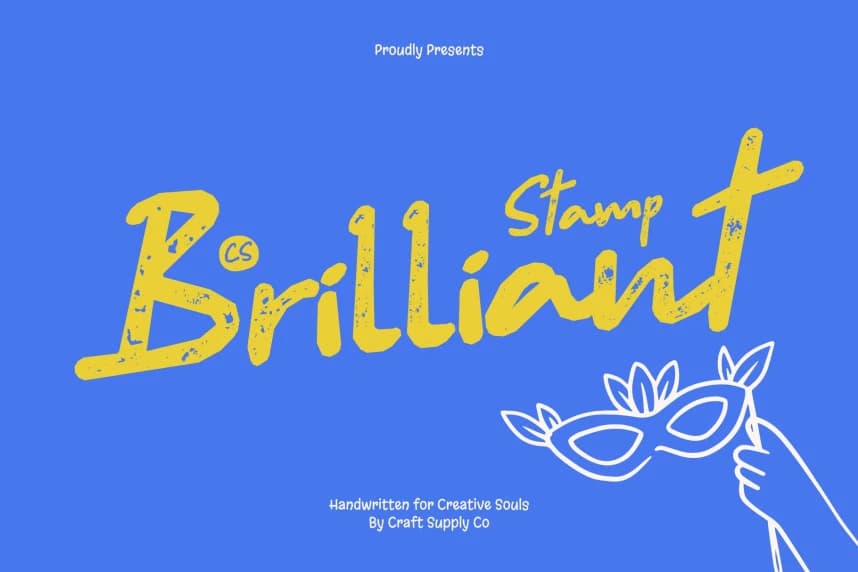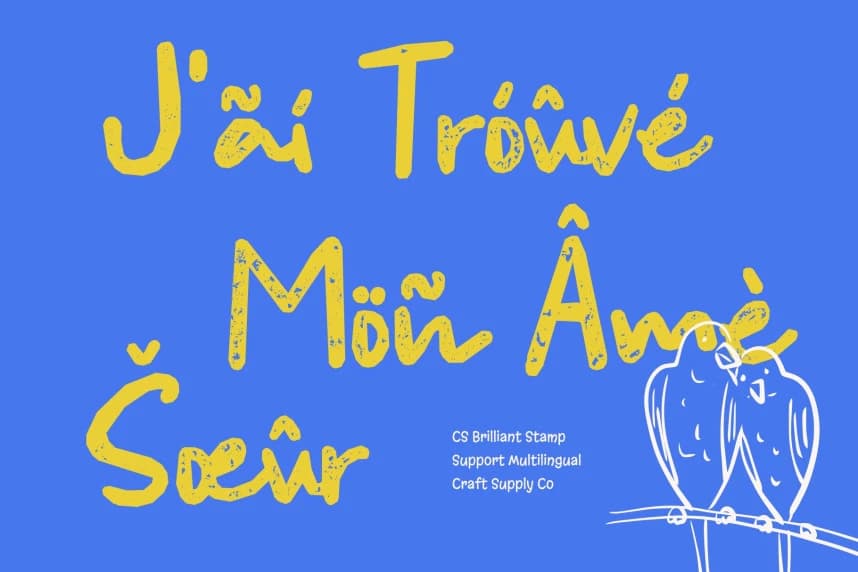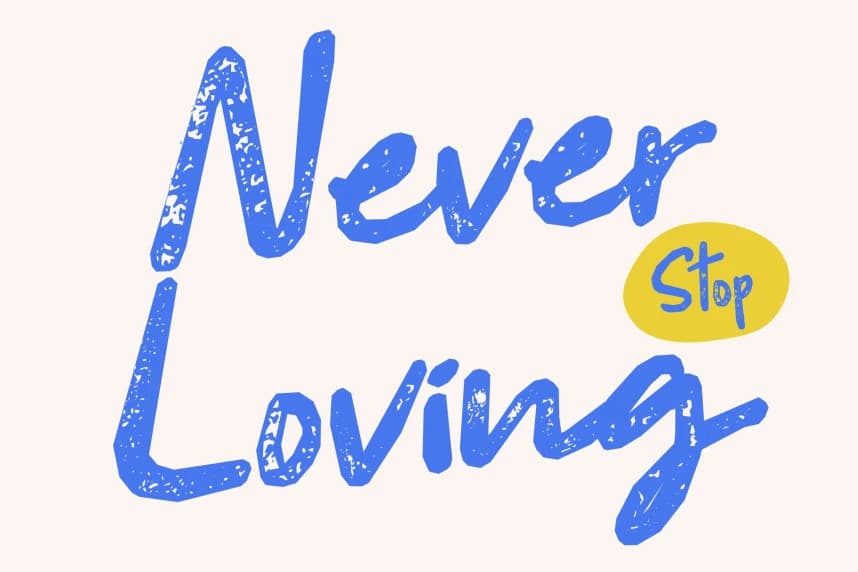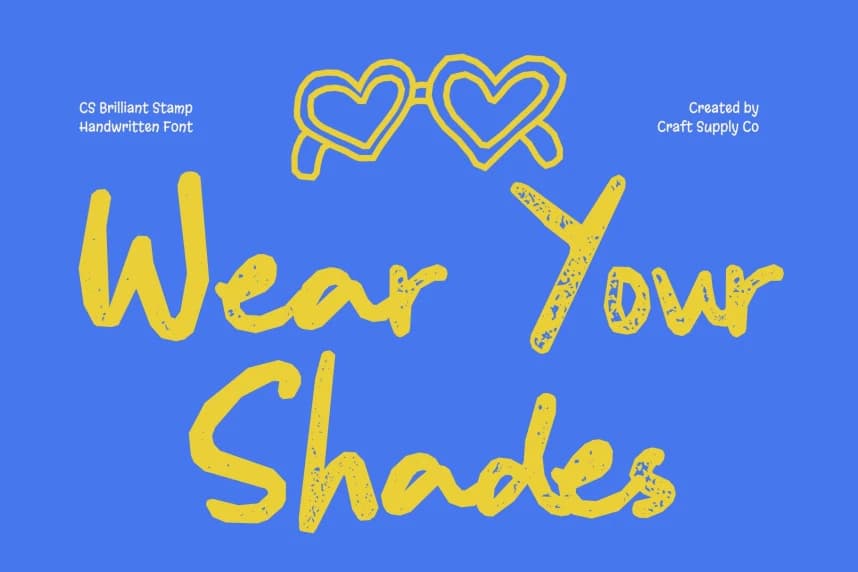
CS Brilliant Stamp Font
CS Brilliant Stamp Font – Handwritten Warmth with Textured Charm Soft Handwritten Script with a Natural Feel. This is a handwritten script font designed to capture the beauty of natural pen strokes with a clean